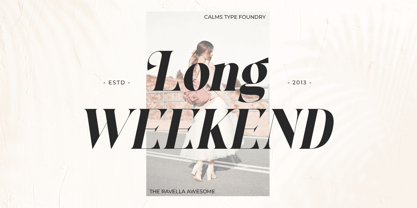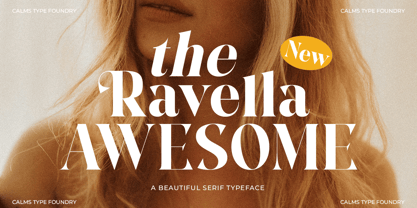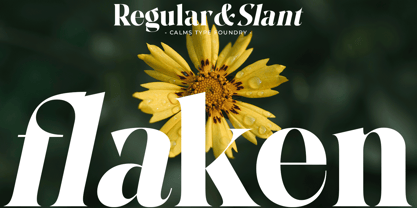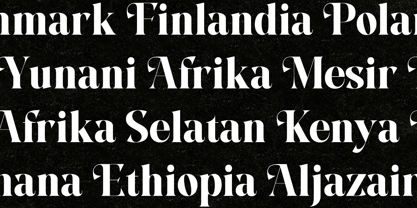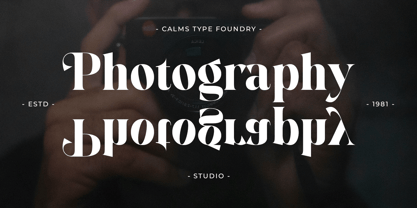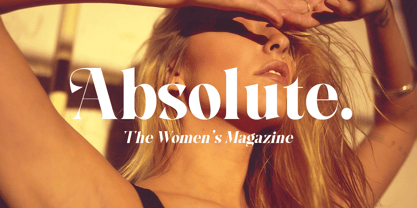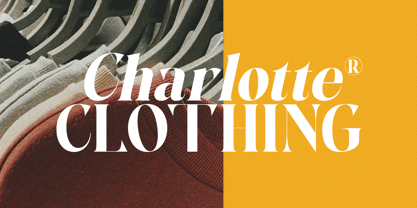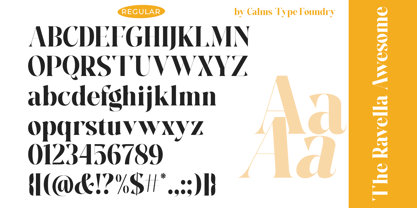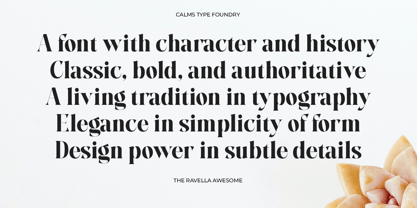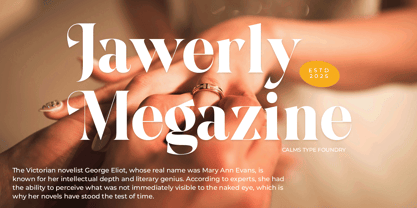
The Ravella Awesome
by Calms Type Foundry
The The Ravella Awesome Font Family was designed by Muhammad Jamil and published by Calms Type Foundry. The Ravella Awesome contains 2 styles and family package options. More about this family
Introducing The Ravella Awesome: A Typeface for Timeless Elegance The Ravella Awesome is a serif typeface that combines classic and modern styles. Its characteristic lies in the elegant thick-thin contrast and the subtle curves at the ends of the letters, giving a luxurious, feminine and classy impression. This font is very suitable for use in branding, fashion magazines, logos, invitations, and editorial designs. Happy creating everyone!
Designers: Muhammad Jamil
Foundry: Calms Type Foundry